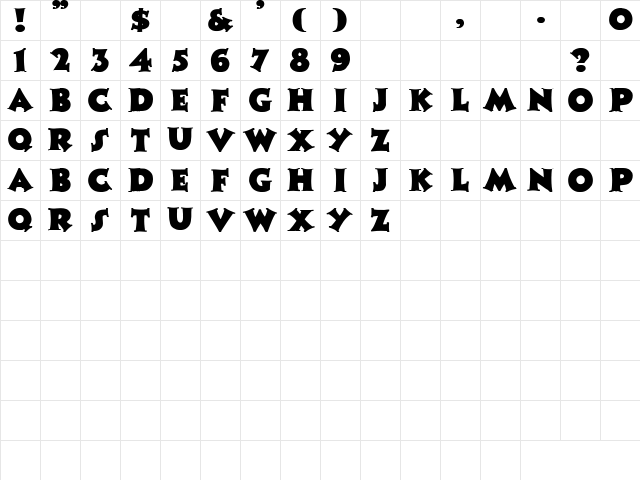
Mr. Niceguy 4 Bold
Design Context for Mr. Niceguy 4 Typeface
Mr. Niceguy 4 is a composed and adaptable typeface that performs quietly and consistently across a wide range of design contexts. Its bold stroke weight gives it real presence on the page.